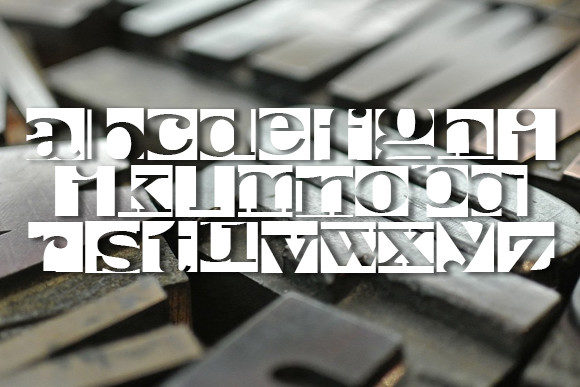
Introduction to Negative Space Font Font
Fonts play a crucial role in design, and the Negative Space Font font is a typeface that brings both character and versatility to any project. Whether you’re working on a branding project, a website, or a print design, the Negative Space Font font offers a unique style that can elevate your work.
Negative Space is a type-press-designed display typeface that will follow any of your creative styles.
It works great for cartoon titles, covers, or comics Add it confidently to your creations and notice how easily they stand out.
Key Features of Negative Space Font Font
Why Choose Negative Space Font Font?
The Negative Space Font font is more than just a typeface – it’s a design tool that helps you communicate your message with style and clarity. Its unique character set and versatile design make it suitable for a wide range of applications, from elegant invitations to bold headlines.
With its carefully crafted letterforms and balanced proportions, the Negative Space Font font ensures readability and visual appeal across all mediums.
What makes Negative Space Font font special?
The Negative Space Font font stands out with its unique design, exceptional readability, and versatility across various design applications.